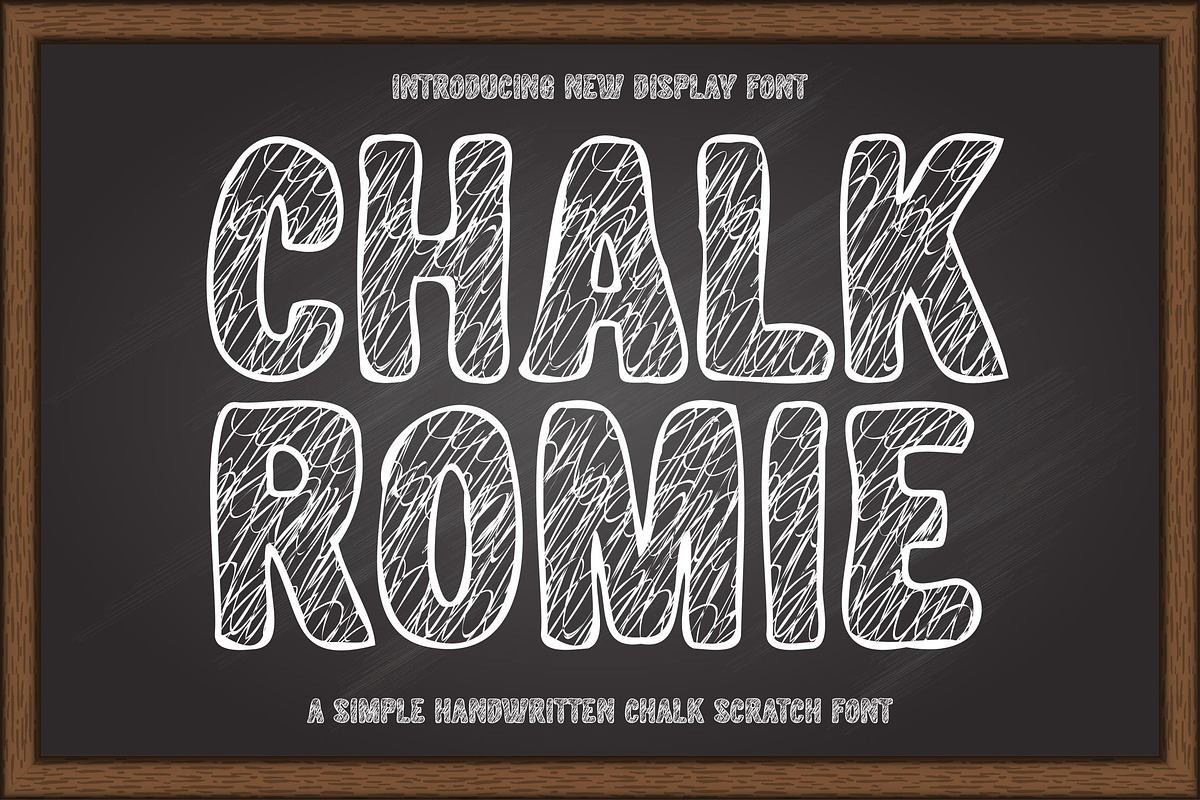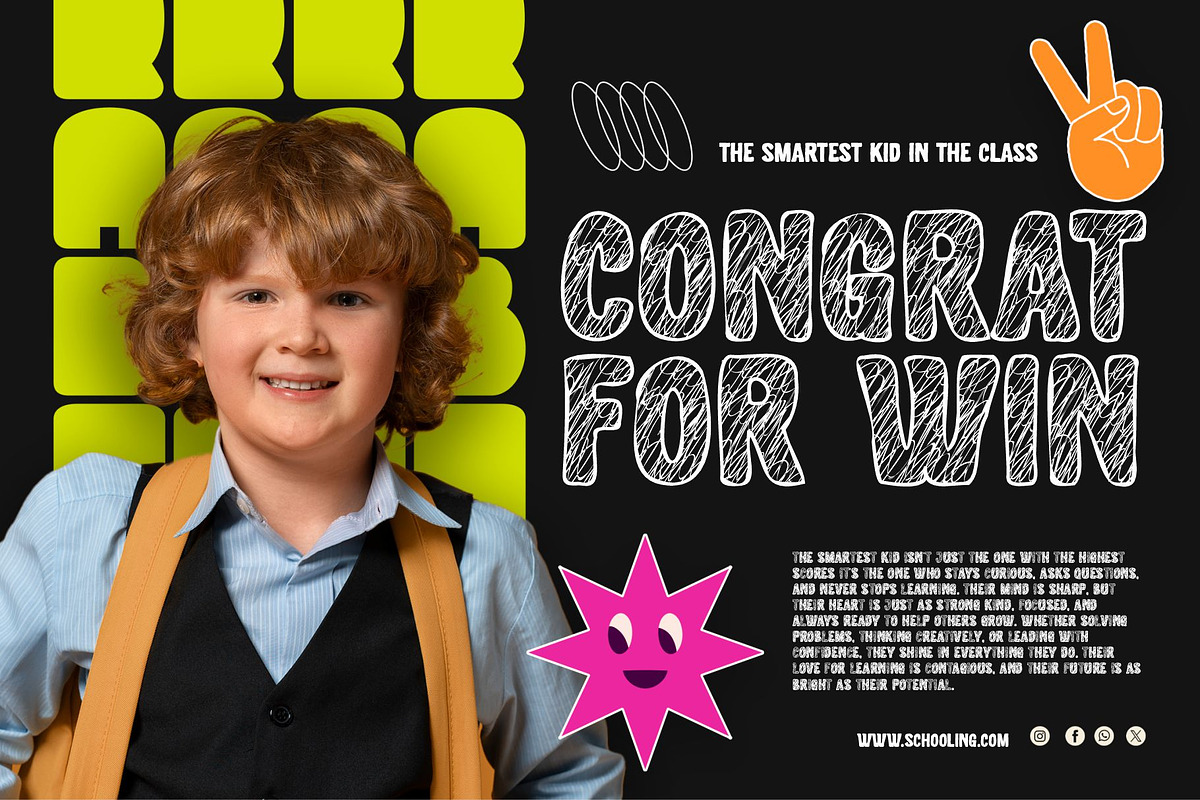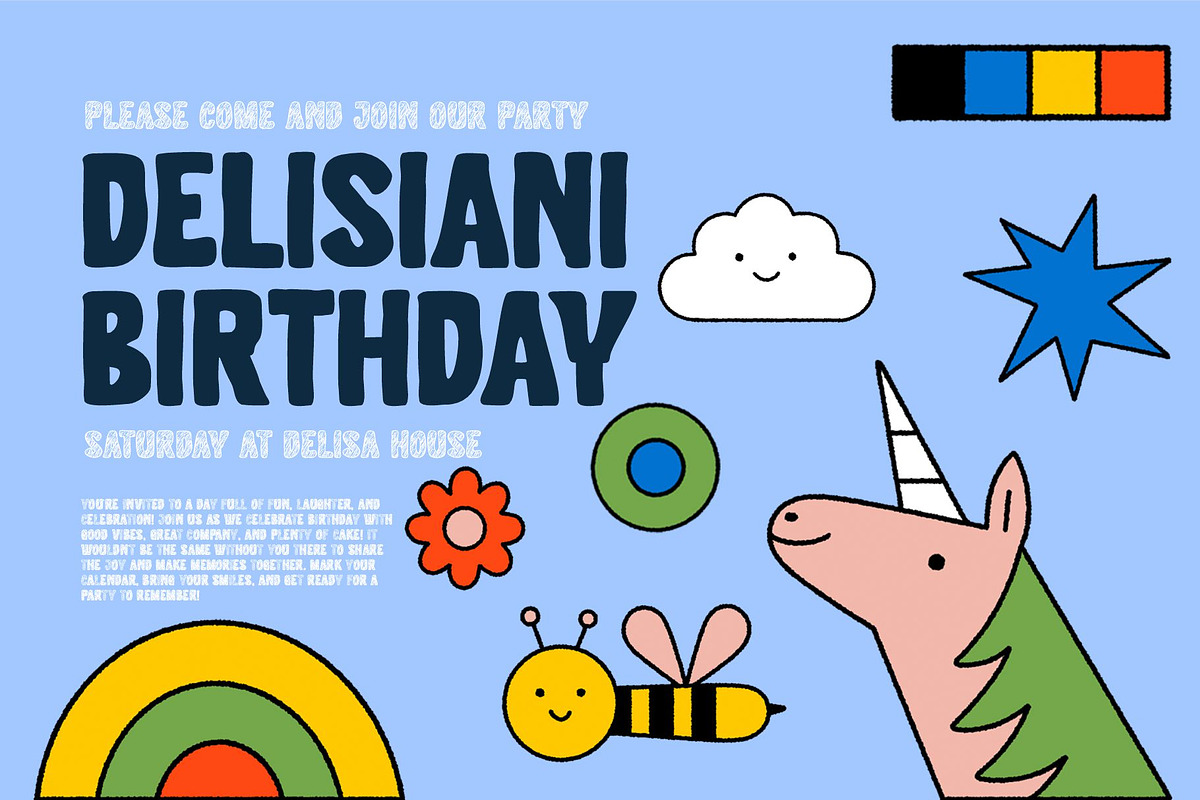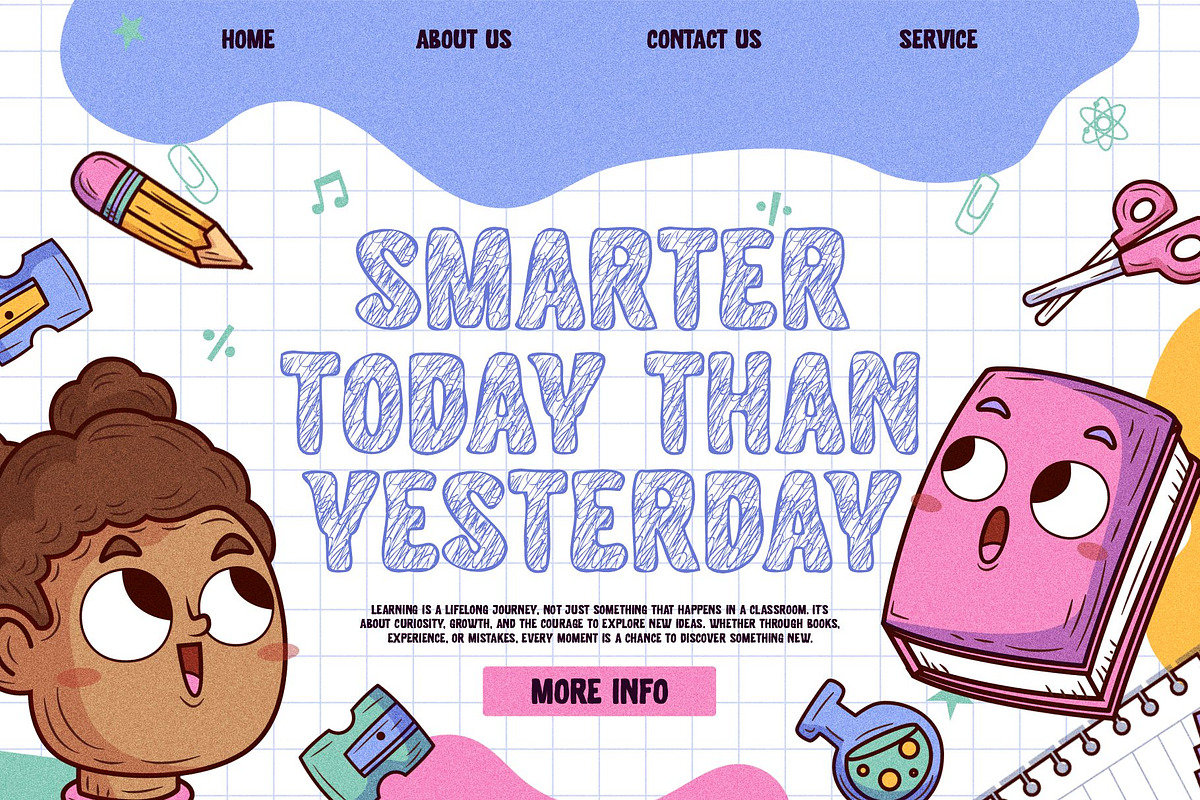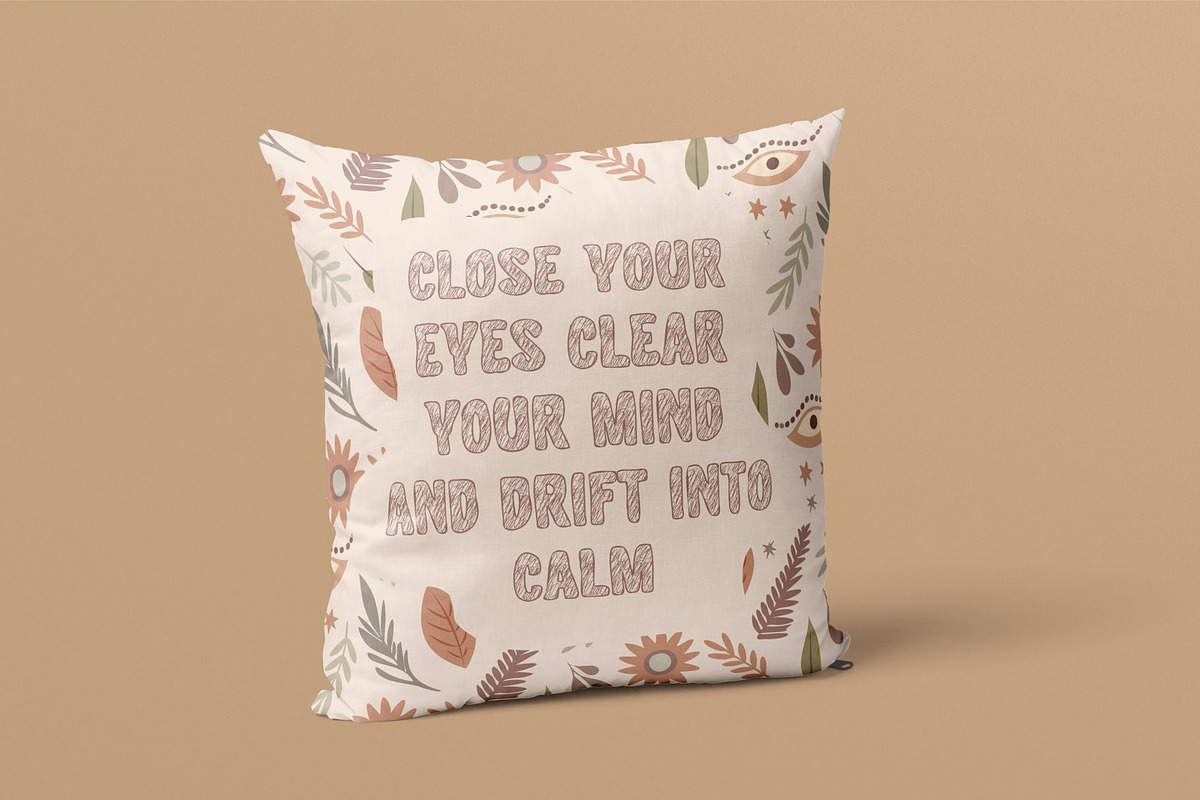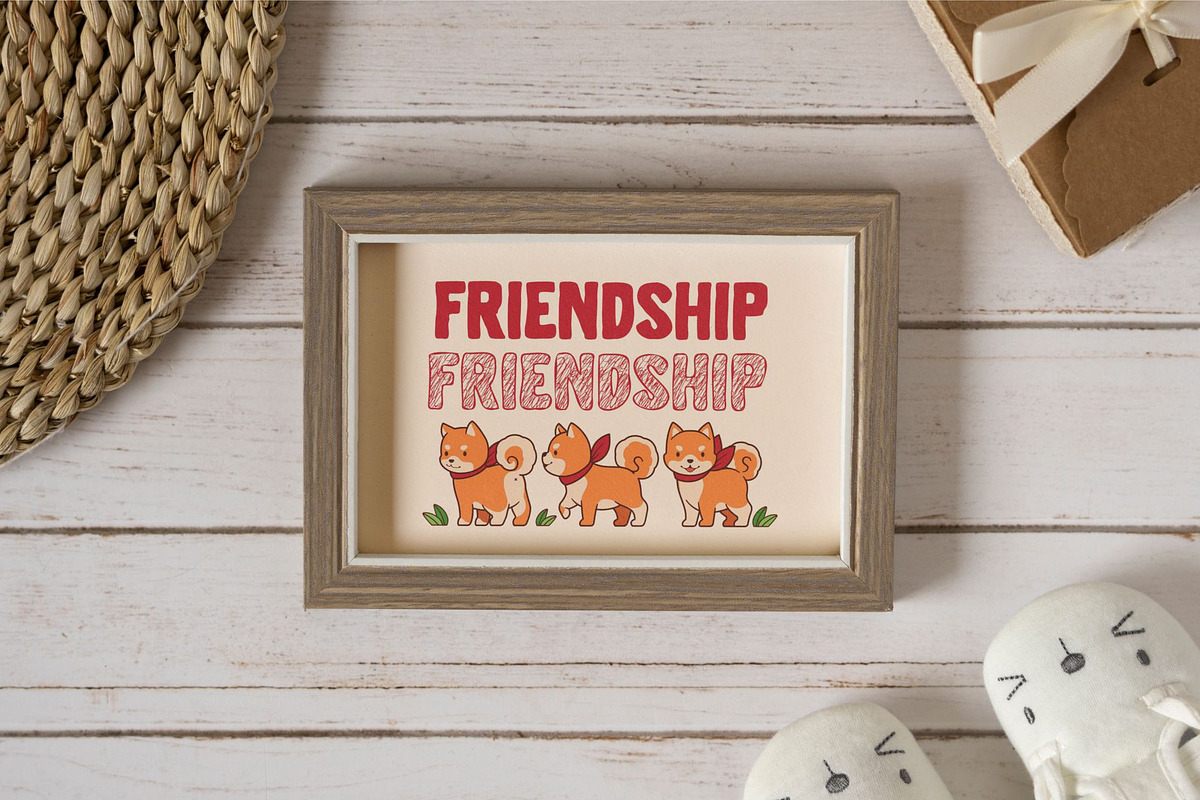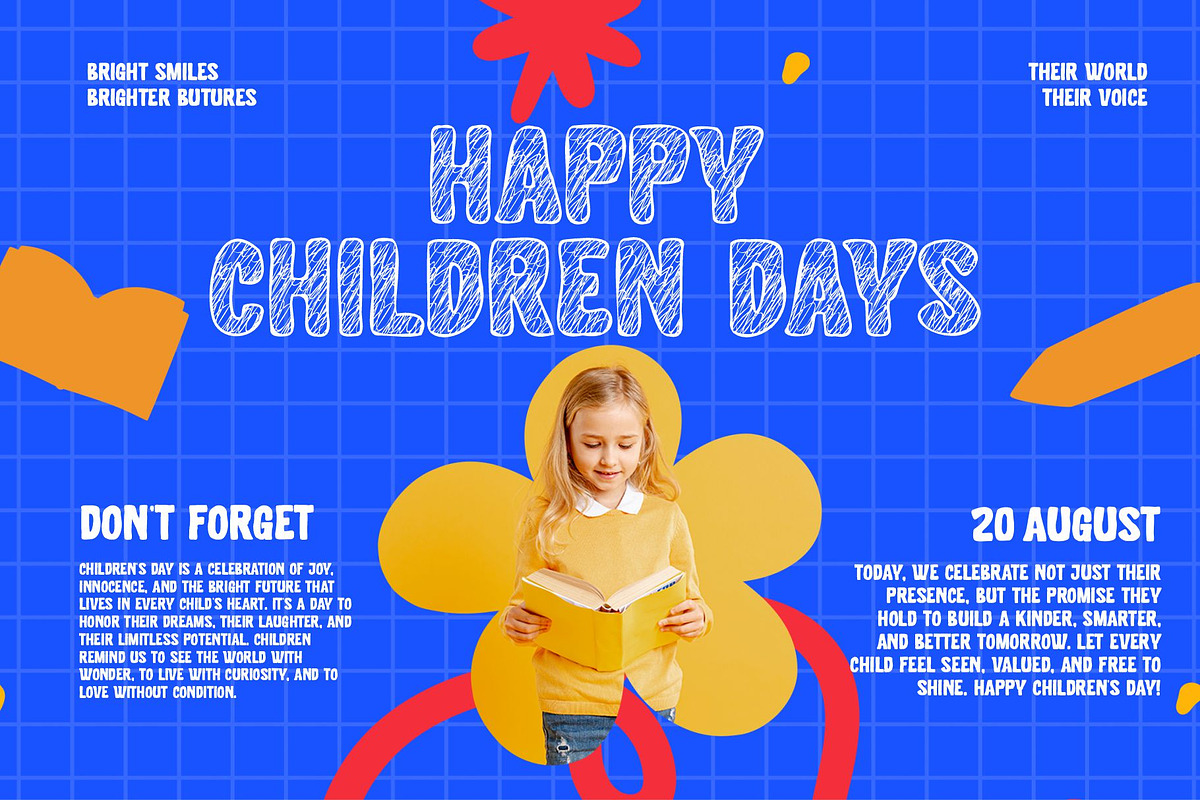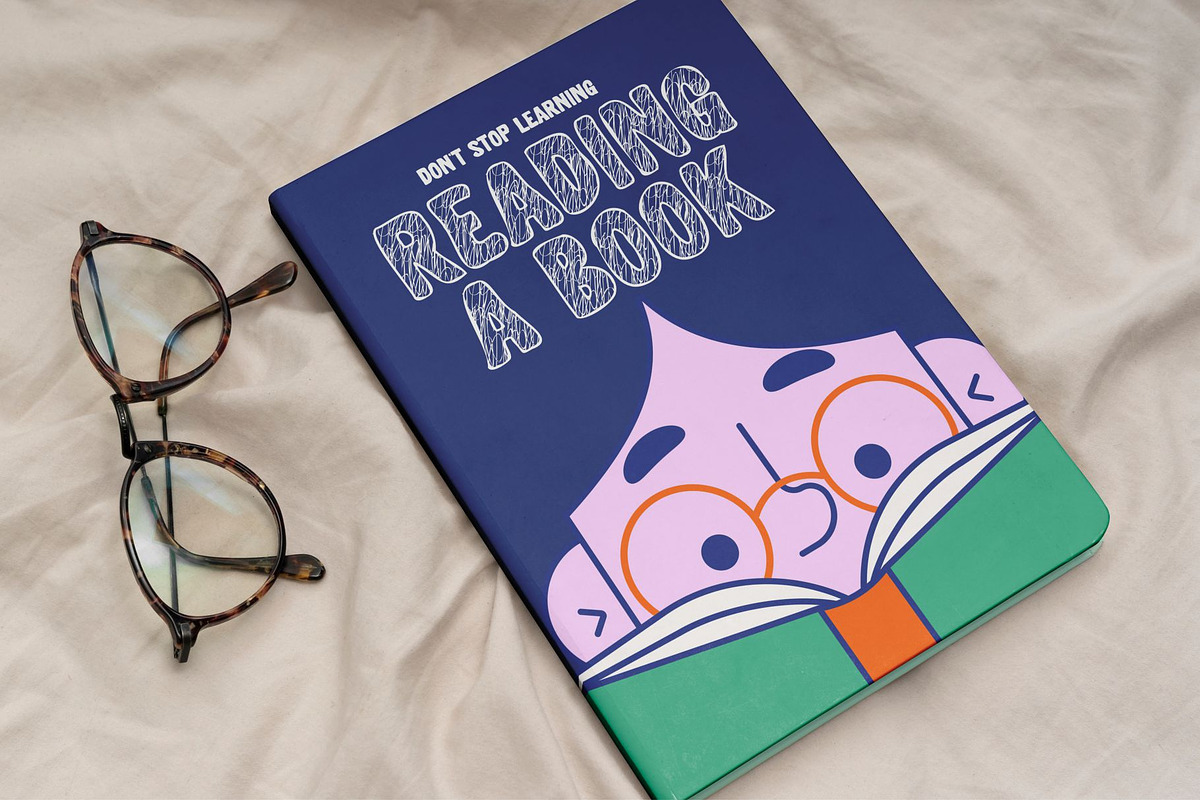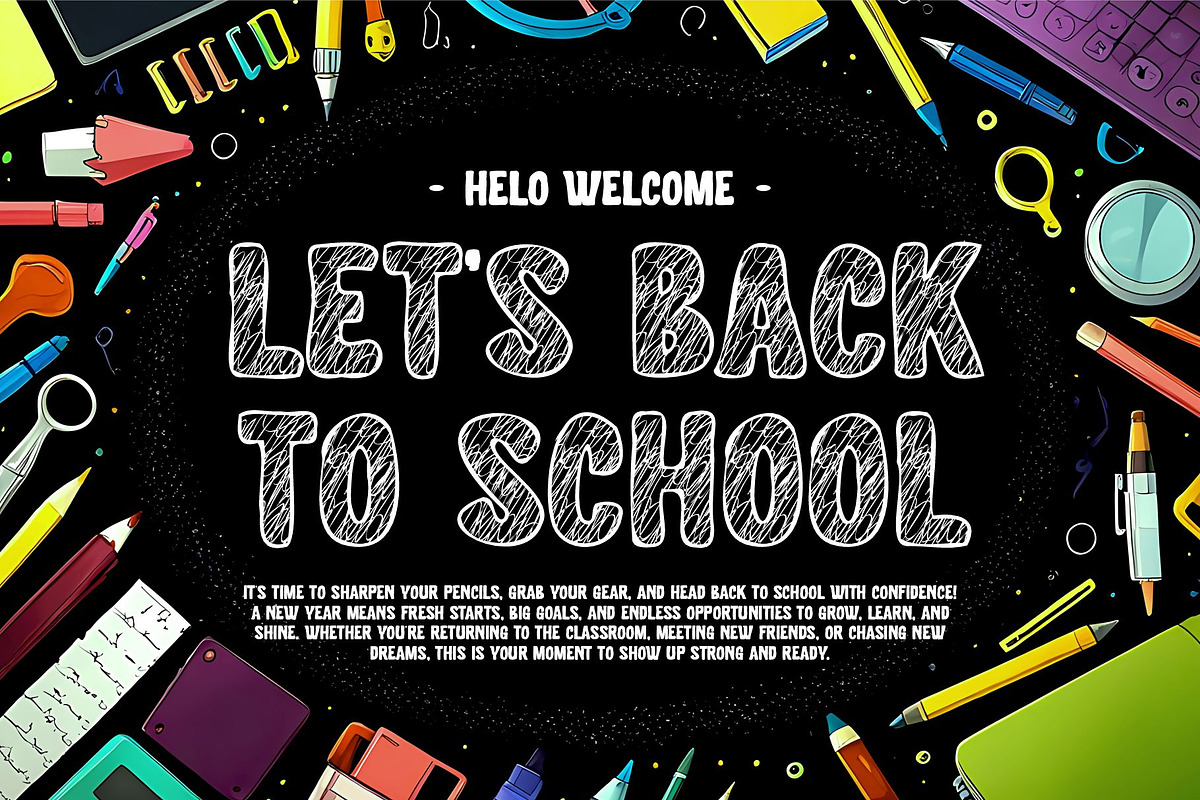
Chalk Romie || handwritten Font
Introducing Chalk Romie- A Natural Chalk Font
This Chalk Romie font is inspired by the writing of chalk on the blackboard of a school. With a natural touch of chalk and rough will add beauty and originality to a writing in the style of chalk. It is suitable for use in a variety of designs with shades of rough or you want to use it with a touch of chalk style, as applied to t-shirts, menu boards, quotes, handletings, posters, logos or other designs.